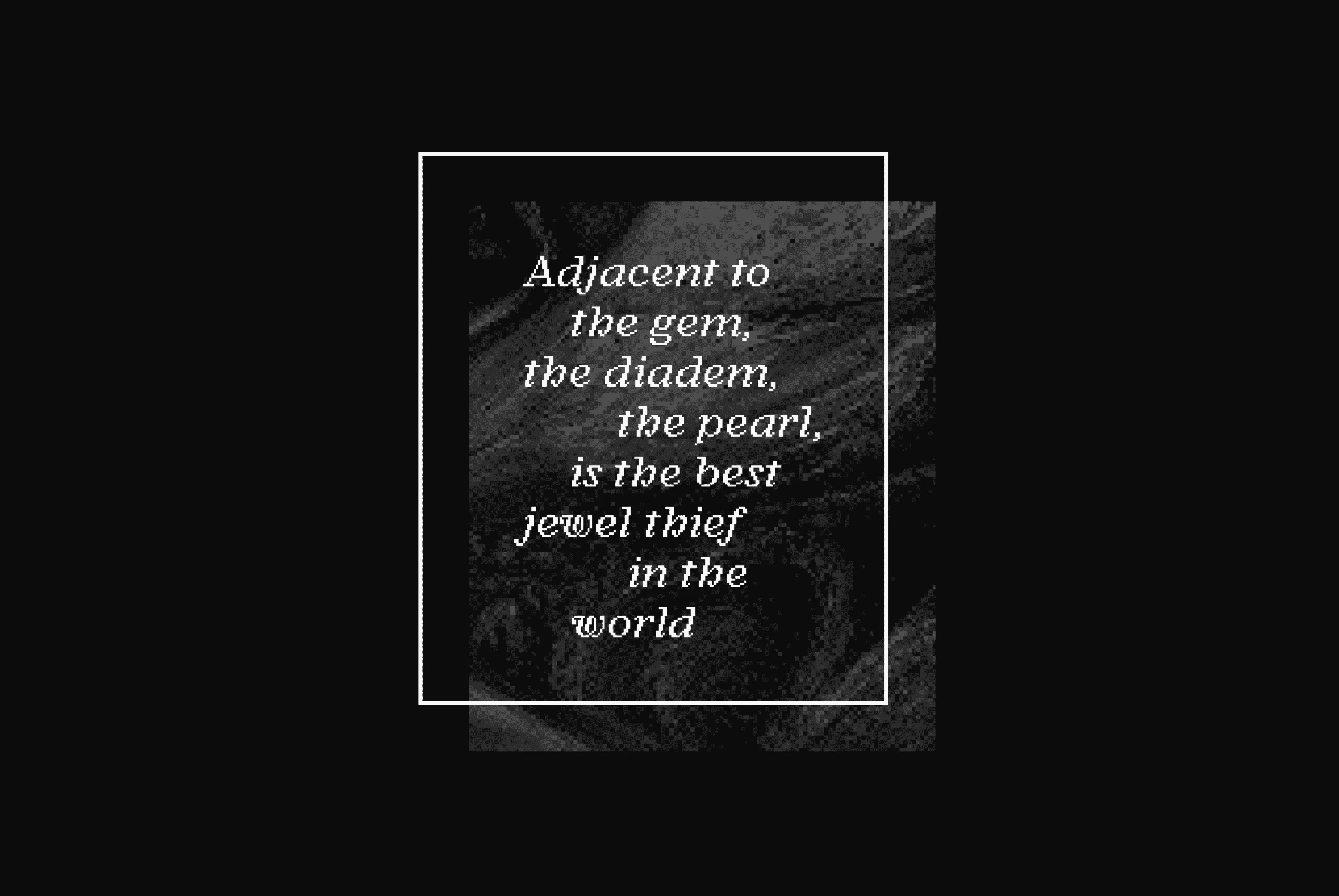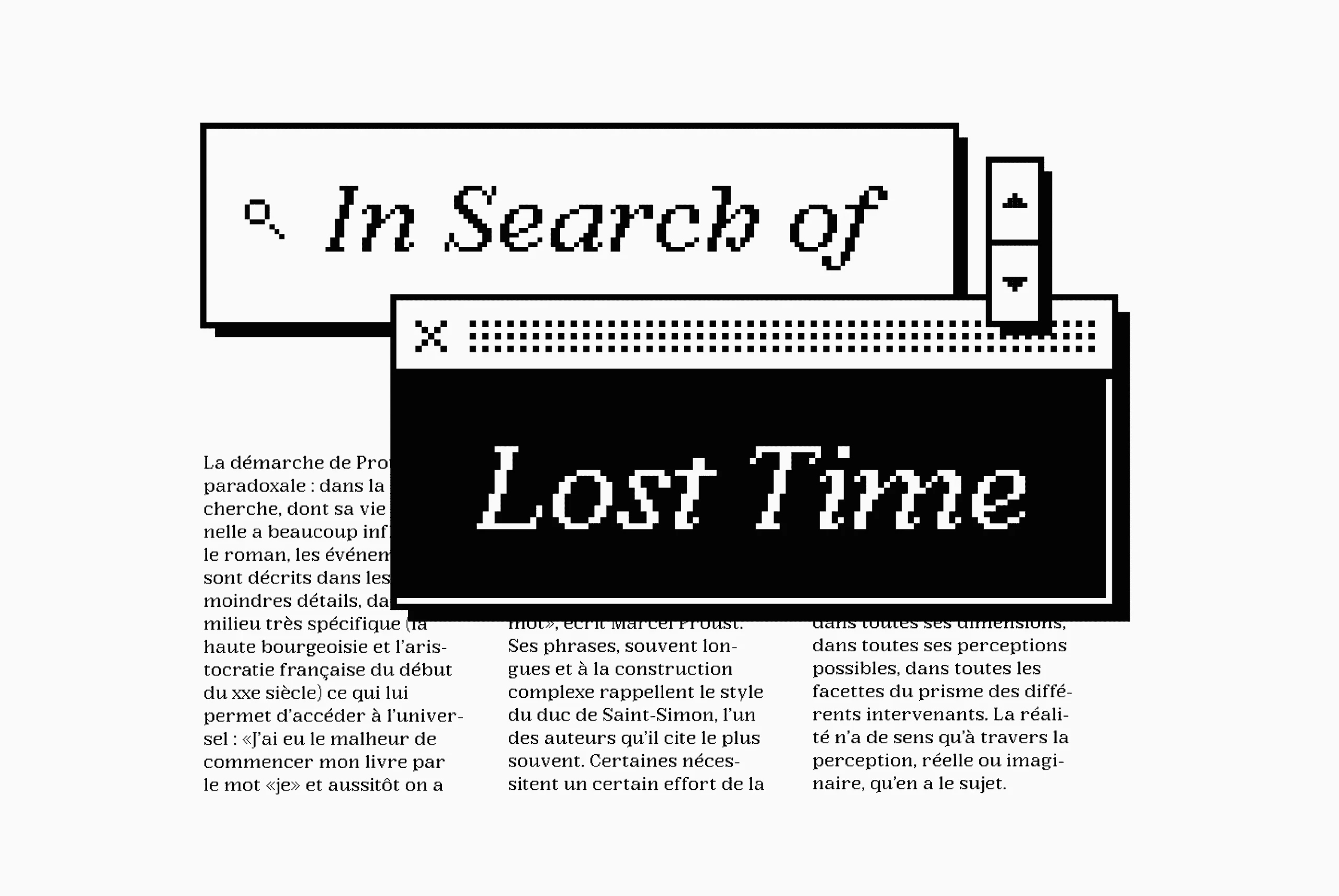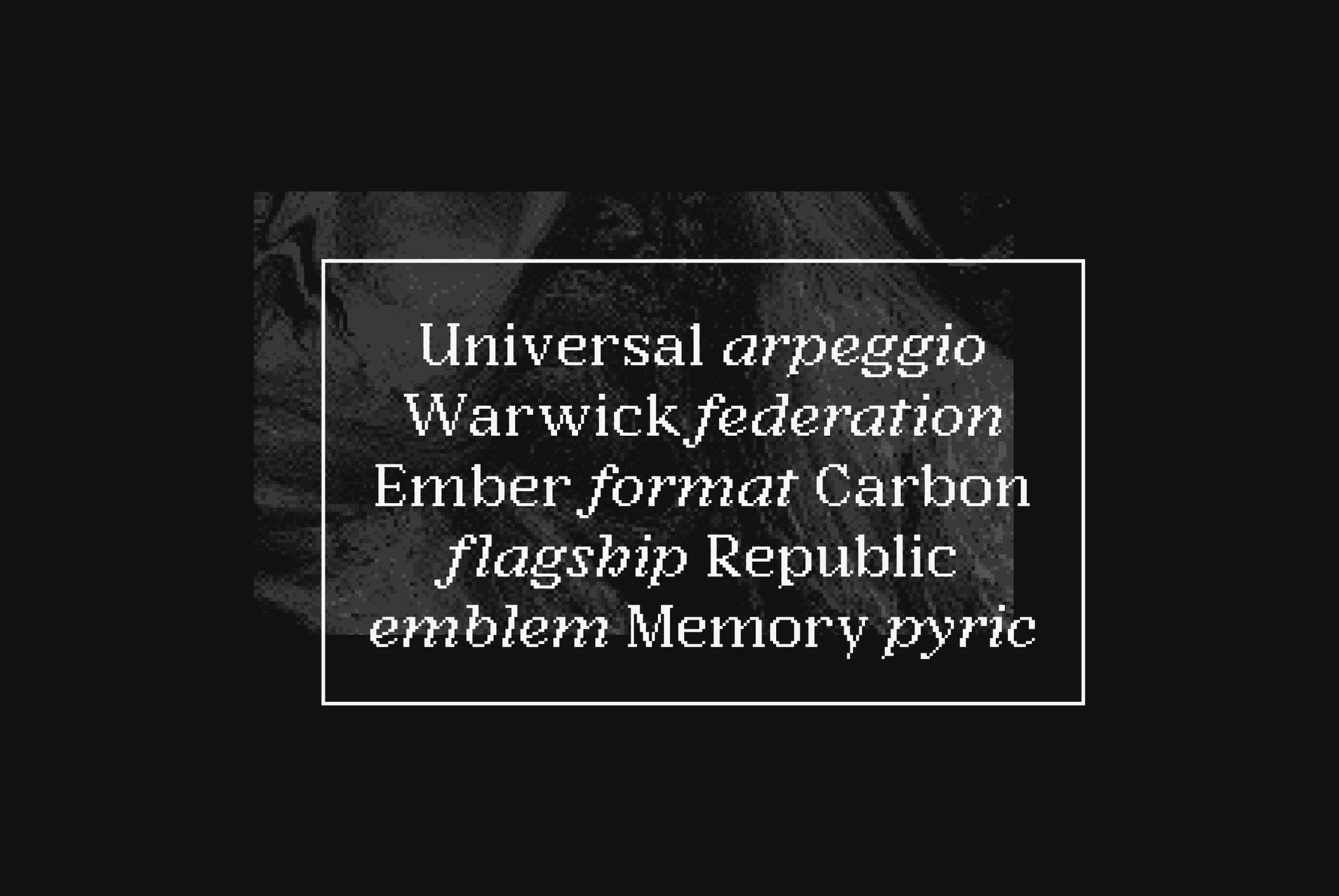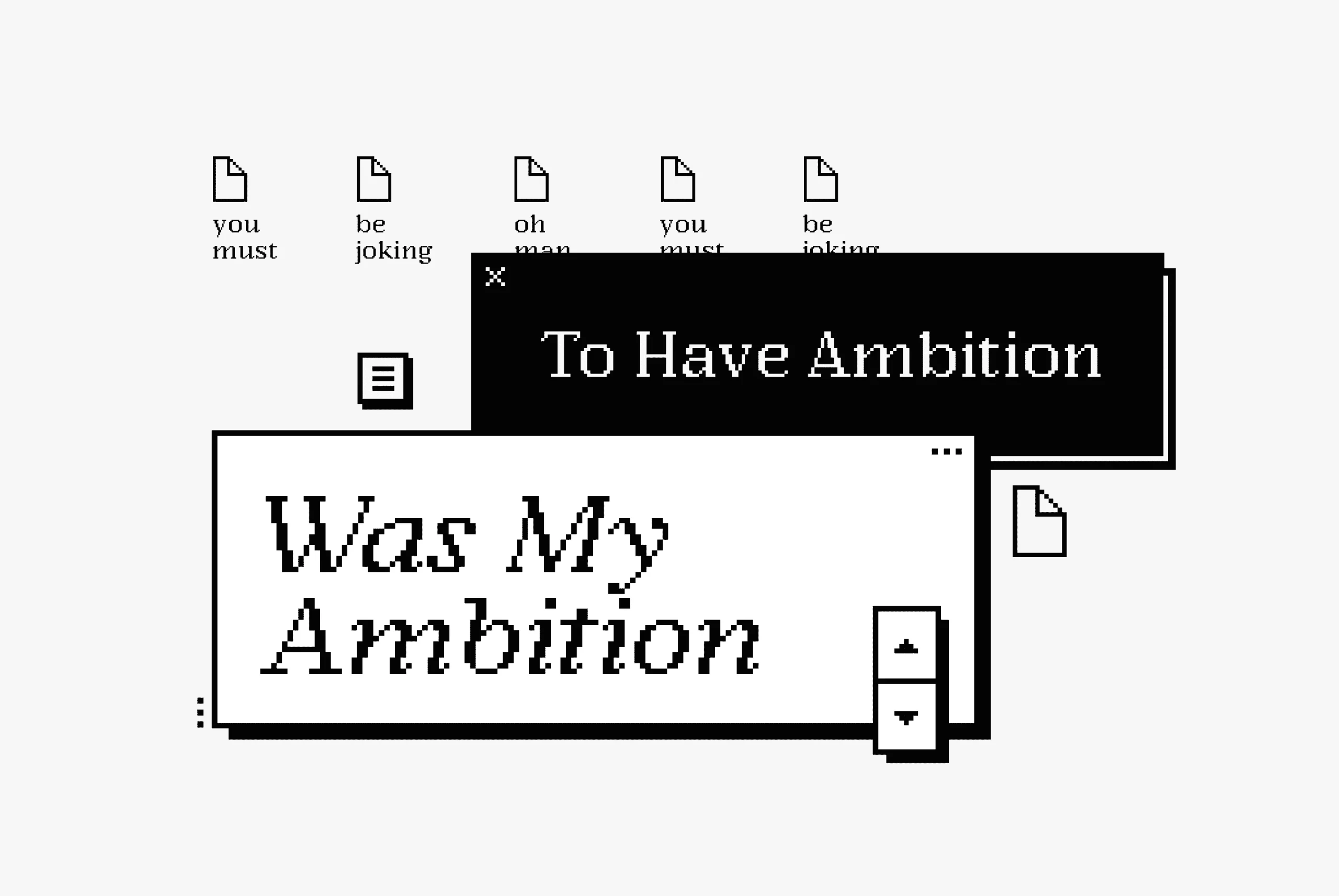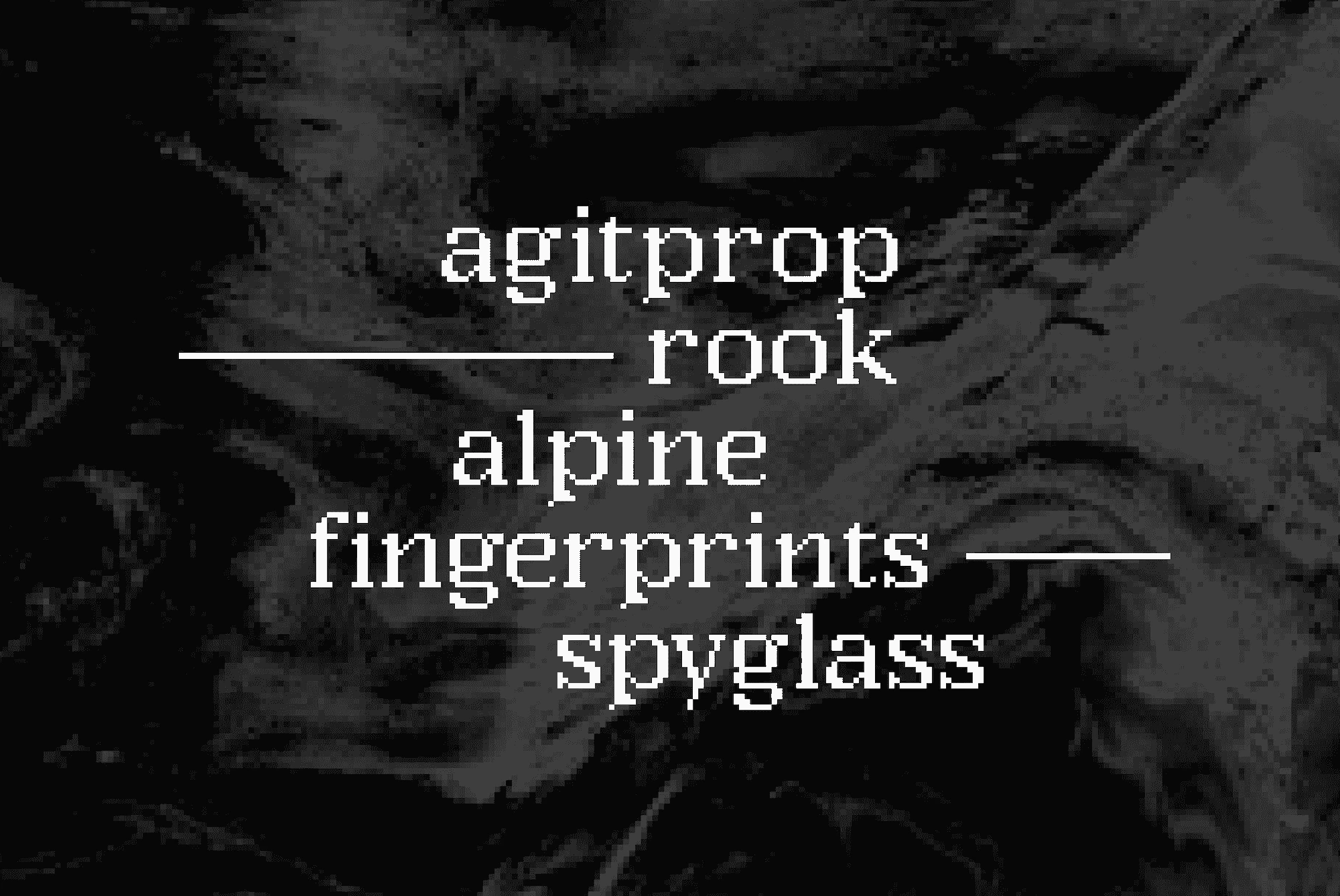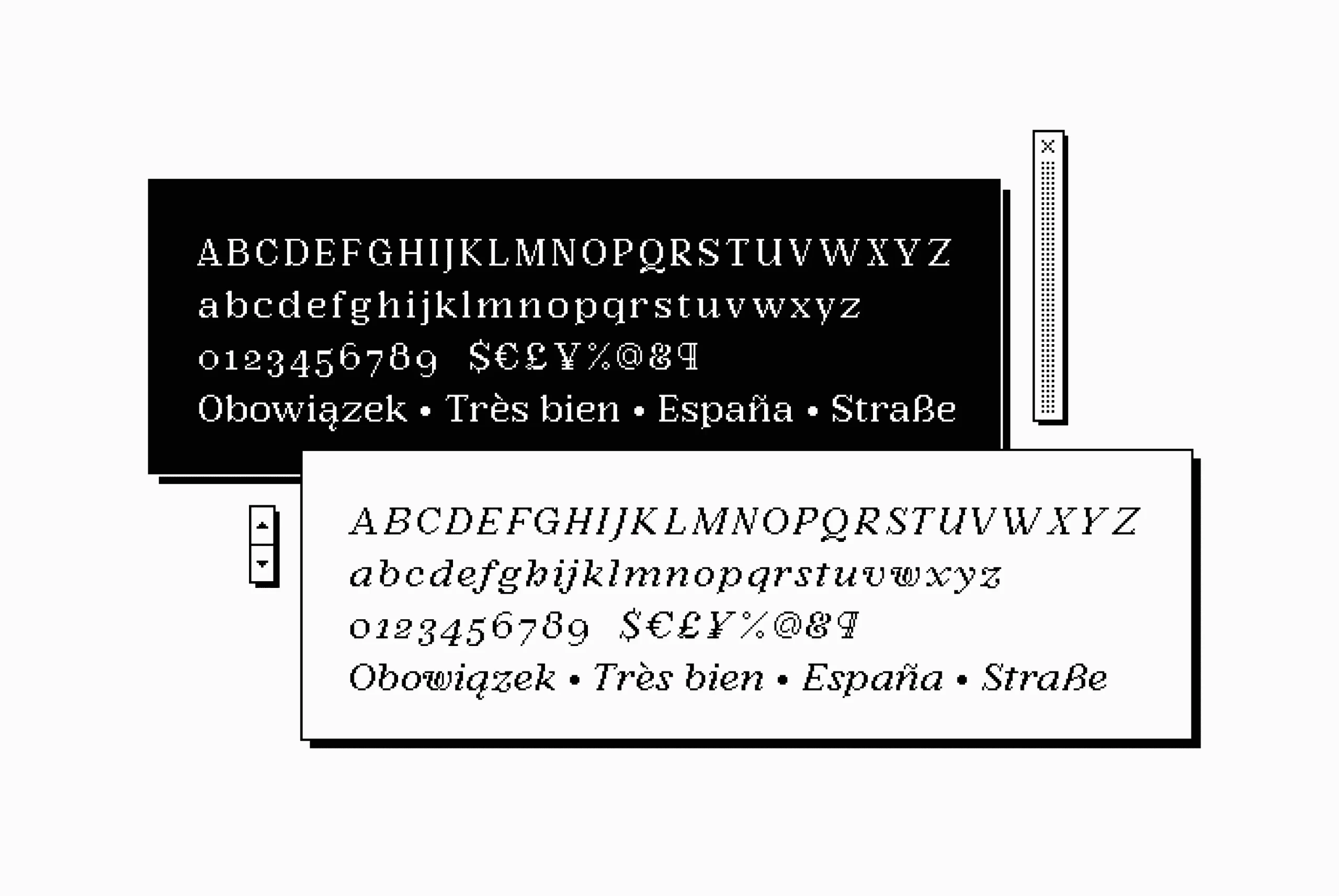
Argent Pixel
Argent Pixel Font Family
Argent Pixel CF is a playful bitmap version of the original dashing Argent typeface. With a pronounced x-height, this unexpectedly readable serif recreates the original font’s distinctive look in a style evocative of early Macintosh typography. It’s readily useful with its angled serifs and swashy italics for all kinds of typographic tasks needing a retro, low-resolution aesthetic, such as identities and brands, advertising, magazines and journals, book covers, packaging and labels, and more.
Argent Pixel font by Connary Fagen Fonts — the words “Argent Pixel” in pixelated italic serif letters within a white window, and above it, a black window with the words “A low-fi rendition of a well-loved typeface” in pixelated italic serif letters.Argent Pixel font by Connary Fagen Fonts — a white pixelated italic serif text, “Adjacent to the gem, the diadem, the pearl, is the best jewel thief in the world,” on a dark pixelated background, framed by a thin white rectangle.Argent Pixel font by Connary Fagen Fonts — the pixelated italic serif words “In Search of” in a white window with a magnifying glass icon, and “Lost Time” in a black window with an X iconArgent Pixel font by Connary Fagen Fonts — a white pixelated serif font in upright and italic styles, showing the words “Universal arpeggio Warwick federation Ember format Carbon flagship Republic emblem Memory pyric” within a white rectangular frameArgent Pixel font by Connary Fagen Fonts — a pixelated desktop interface with two overlapping windows, one reading “To Have Ambition” in upright serif letters and the other “Was My Ambition” in italic serif letters, surrounded by pixelated file icons with words like “you must” and “be joking.”Argent Pixel font by Connary Fagen Fonts — the words “agitprop,” “rook,” “alpine,” “fingerprints,” and “spyglass” in a pixelated serif typeface, with two horizontal lines framing “rook” and “spyglass”Argent Pixel font by Connary Fagen Fonts — two overlapping pixel-style windows, one black with upright serif letters and the other white with italic serif letters, both showing the Latin alphabet, numbers, symbols, and sample wordsArgent Pixel font by Connary Fagen Fonts — a pixelated black-and-white graphic of overlapping windows with the words “if you like this” in italic serif, “try the original Argent & more at” in upright serif, and “connary.com” in italic serif.